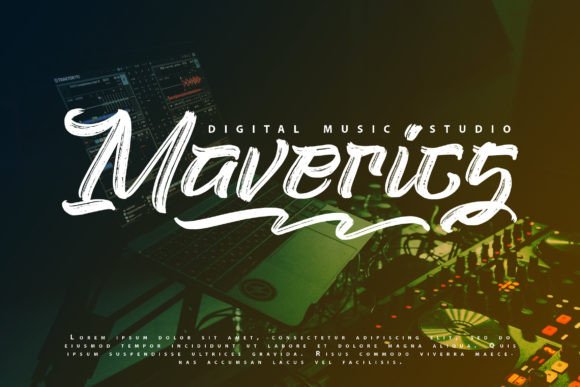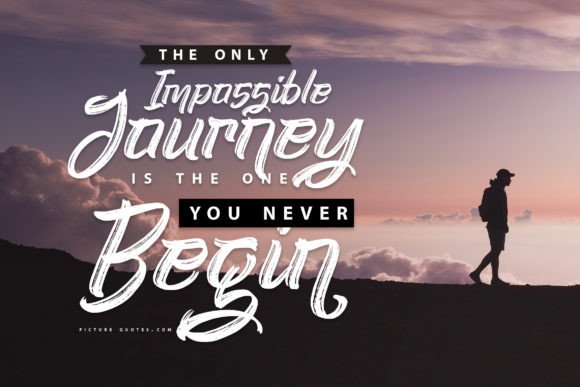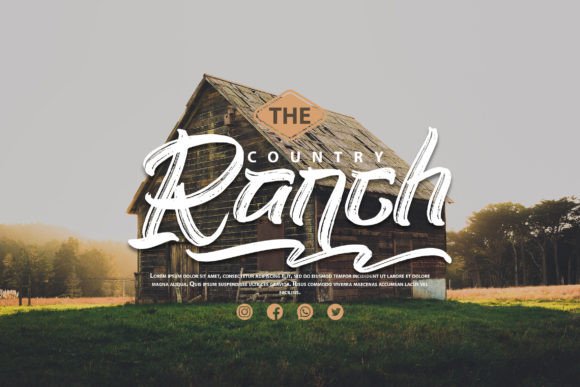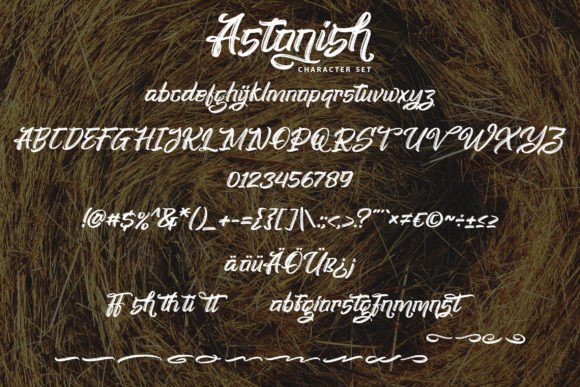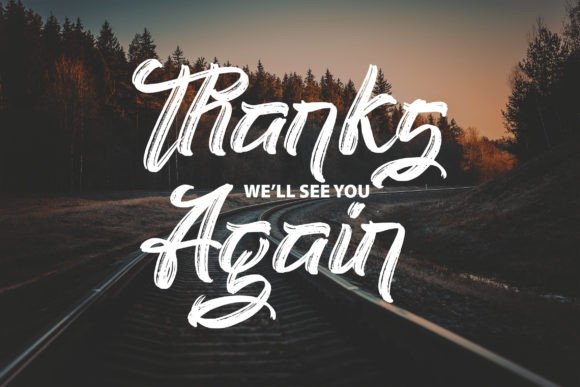
Astonish Font
A Modern and Cool Brush Script Font
Astonish is a sleek and modern brush script font designed to add personality and flair to any design project. With its bold, expressive strokes and unique character, Astonish combines a cool, contemporary feel with timeless elegance. This font is perfect for anyone looking to create standout designs that leave a lasting impression.
Whether you’re working on logos, invitations, or social media graphics, Astonish is sure to bring a fresh and exciting touch to your projects.
Astonish is an incredibly versatile font, perfect for a wide range of creative projects. It works beautifully for logos, business cards, and branding materials. The bold brush strokes give your brand a modern, edgy look that captures attention and feels unique.
This font is also ideal for event invitations, greeting cards, and promotional materials. Its dynamic and expressive style adds personality to any occasion, making your designs both memorable and impactful.
Astonish is great for social media graphics, blog headers, and product packaging. Its modern brush design ensures that your content stands out and makes a strong visual impact.
Despite its artistic and dynamic design, Astonish remains legible and easy to read. The letter spacing is well-balanced, ensuring that your text is clear and neat, whether you use it for large headlines or smaller text.
Pair Astonish with a clean sans-serif font for contrast. Use Astonish for titles and combine it with a simple font for the body text. This creates a visually appealing design while maintaining clarity and readability.
To showcase Astonish’s bold style, use minimalist backgrounds and contrasting colors. Bright, vibrant colors like red, blue, or gold work well with the font’s dynamic design, letting the text pop without overwhelming the design.
For luxury branding, event invitations, or social media graphics, consider adding subtle accents or geometric shapes that enhance Astonish’s bold character. Keep your layout clean to let the font take center stage and grab attention.
Think about the mood you want to convey. Astonish is perfect for designs that need to feel modern, bold, and energetic, while still maintaining sophistication.
Astonish is more than just a brush script font. It’s a tool that brings energy, personality, and boldness to any design. Its unique strokes make it the ideal choice for a wide variety of projects, from branding to social media.